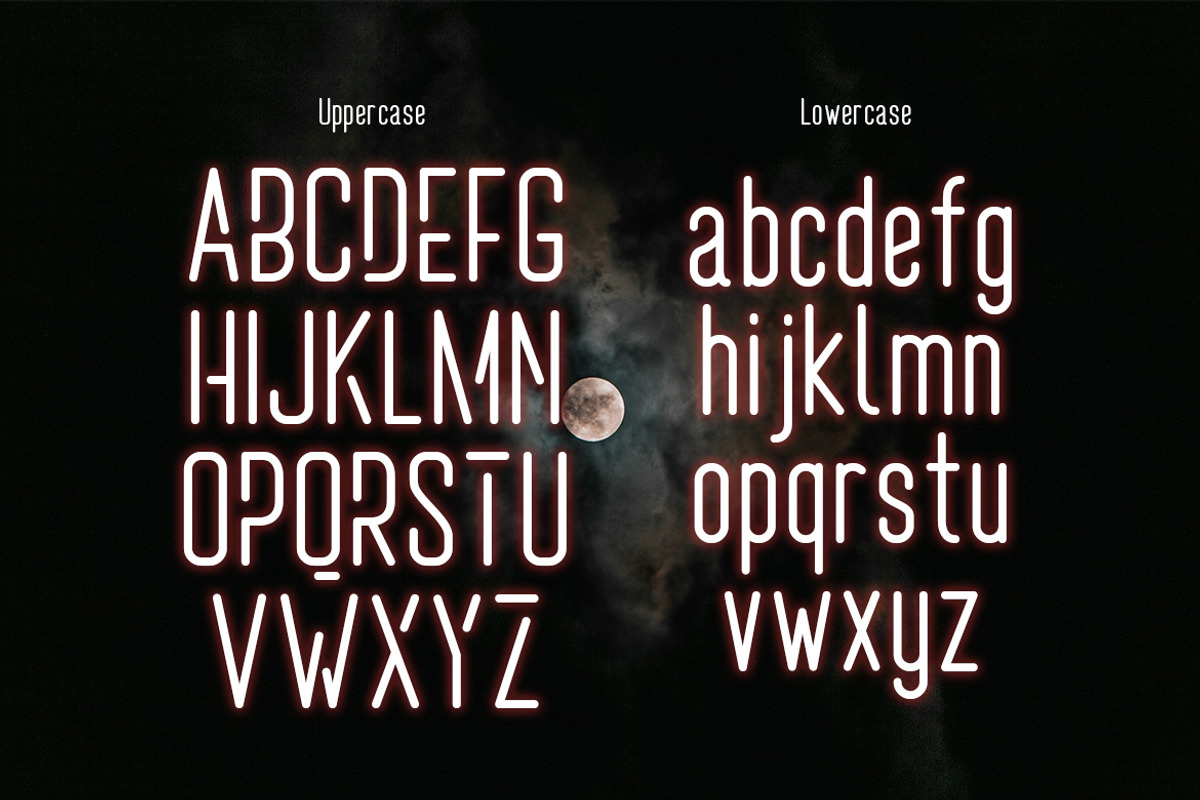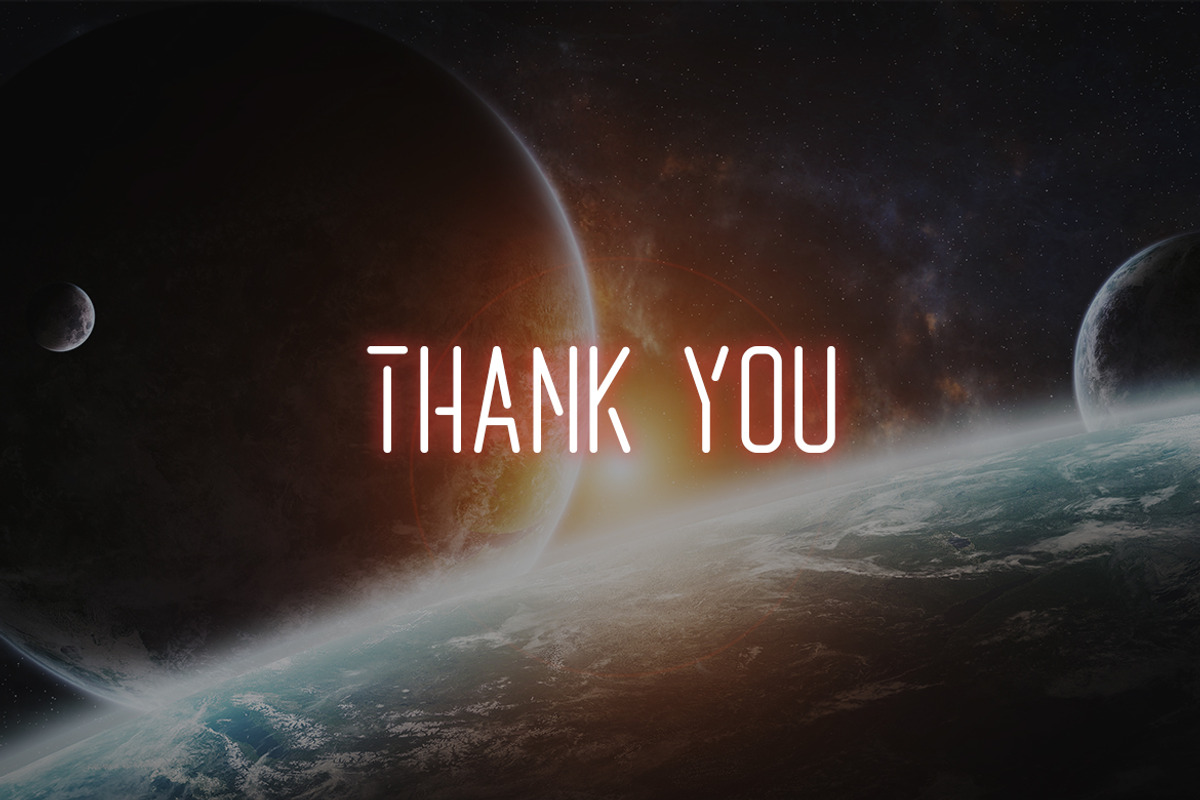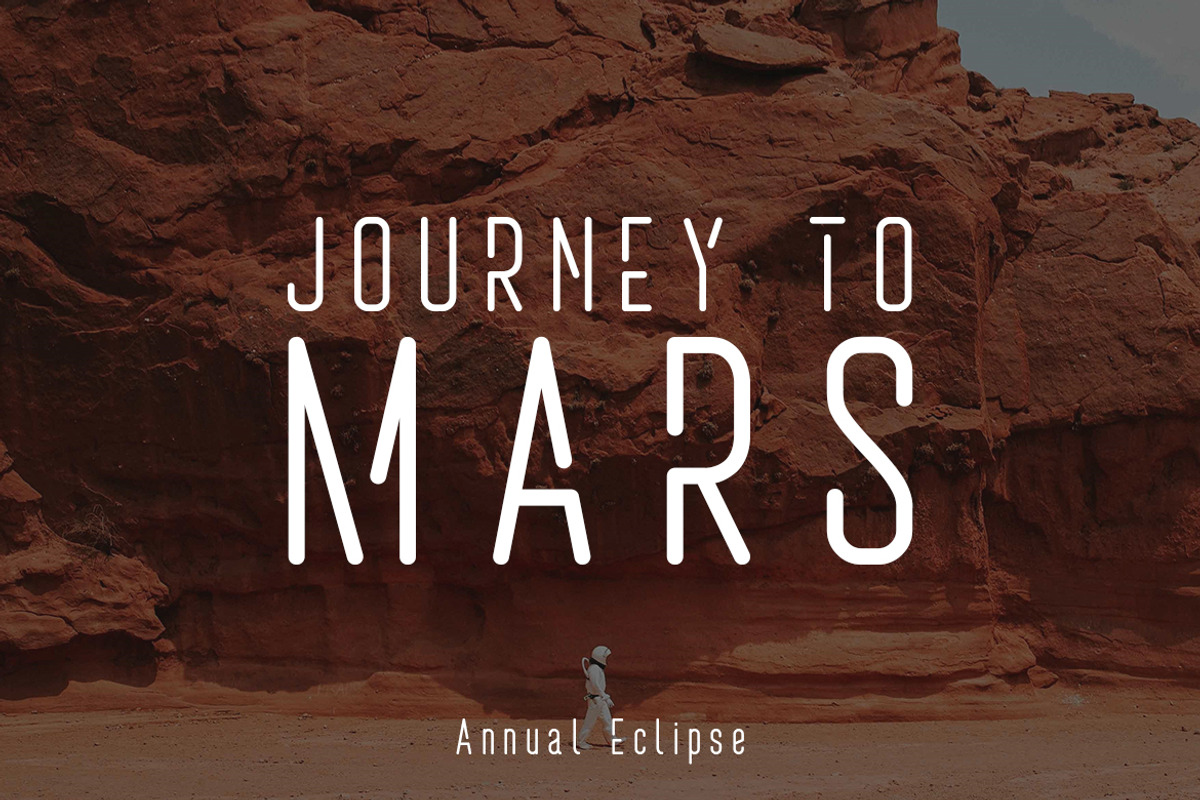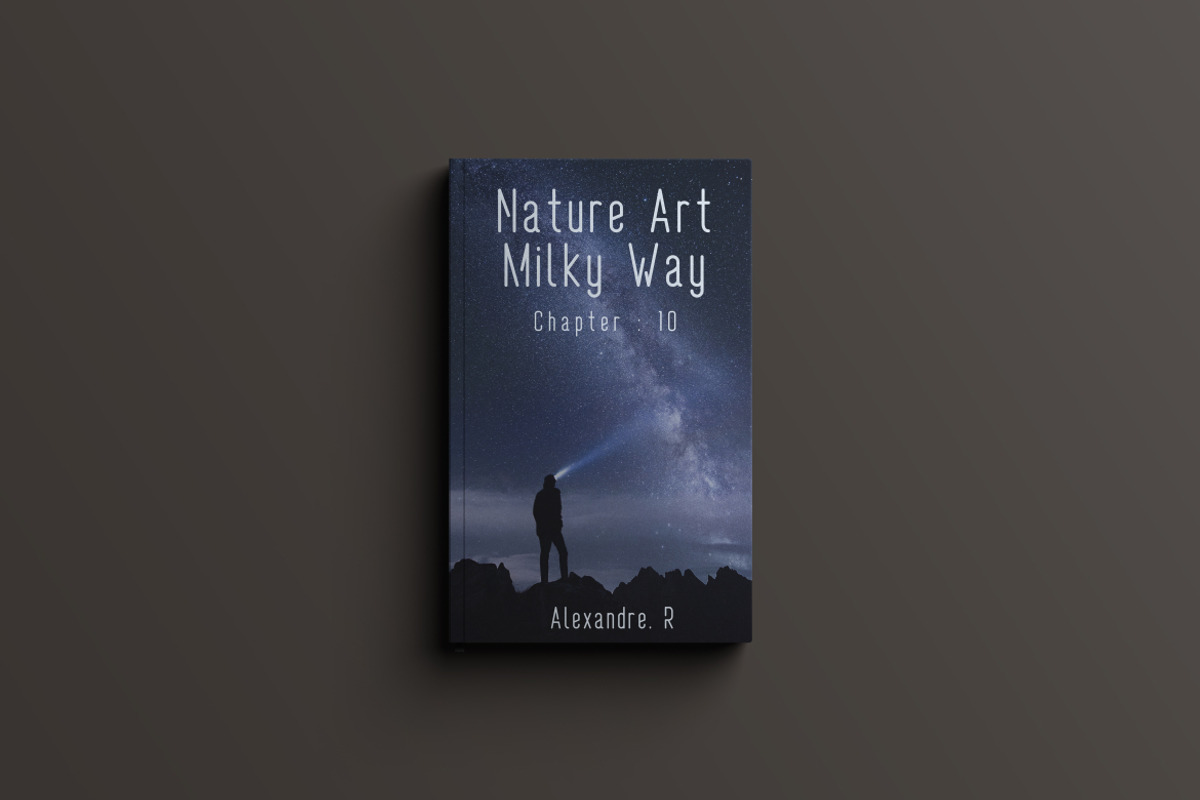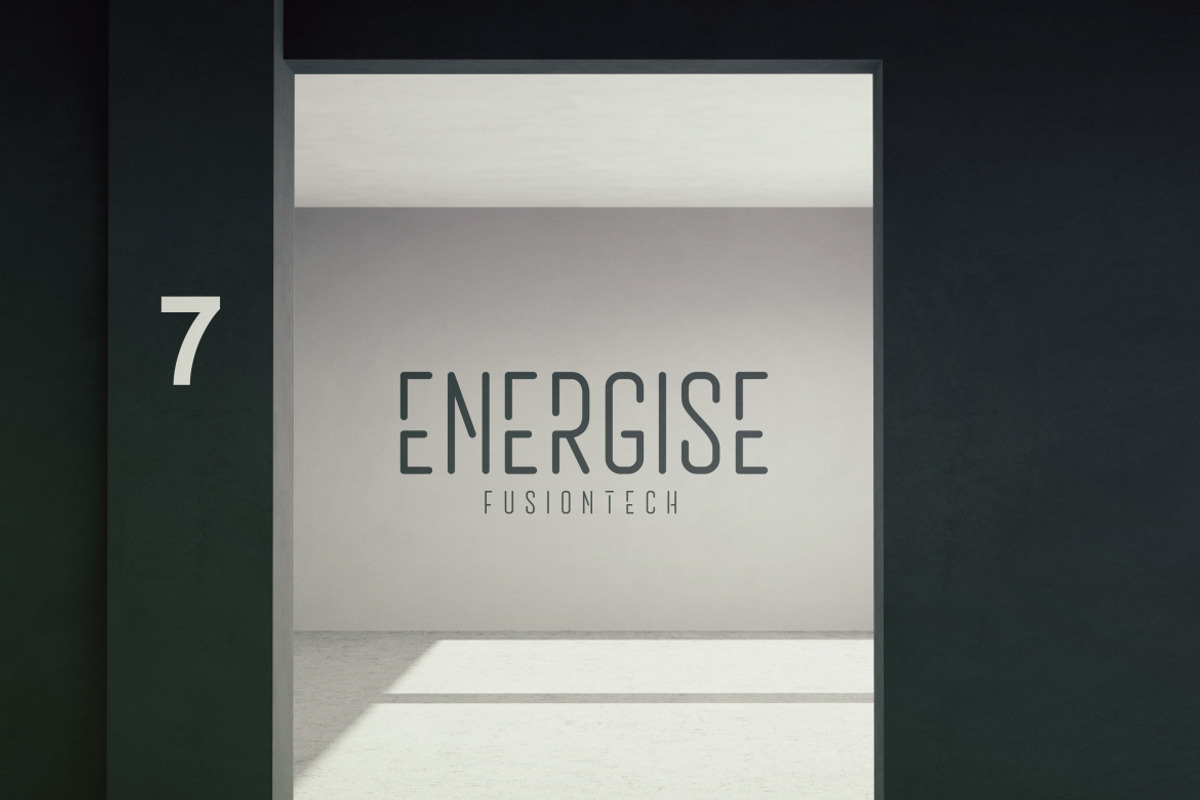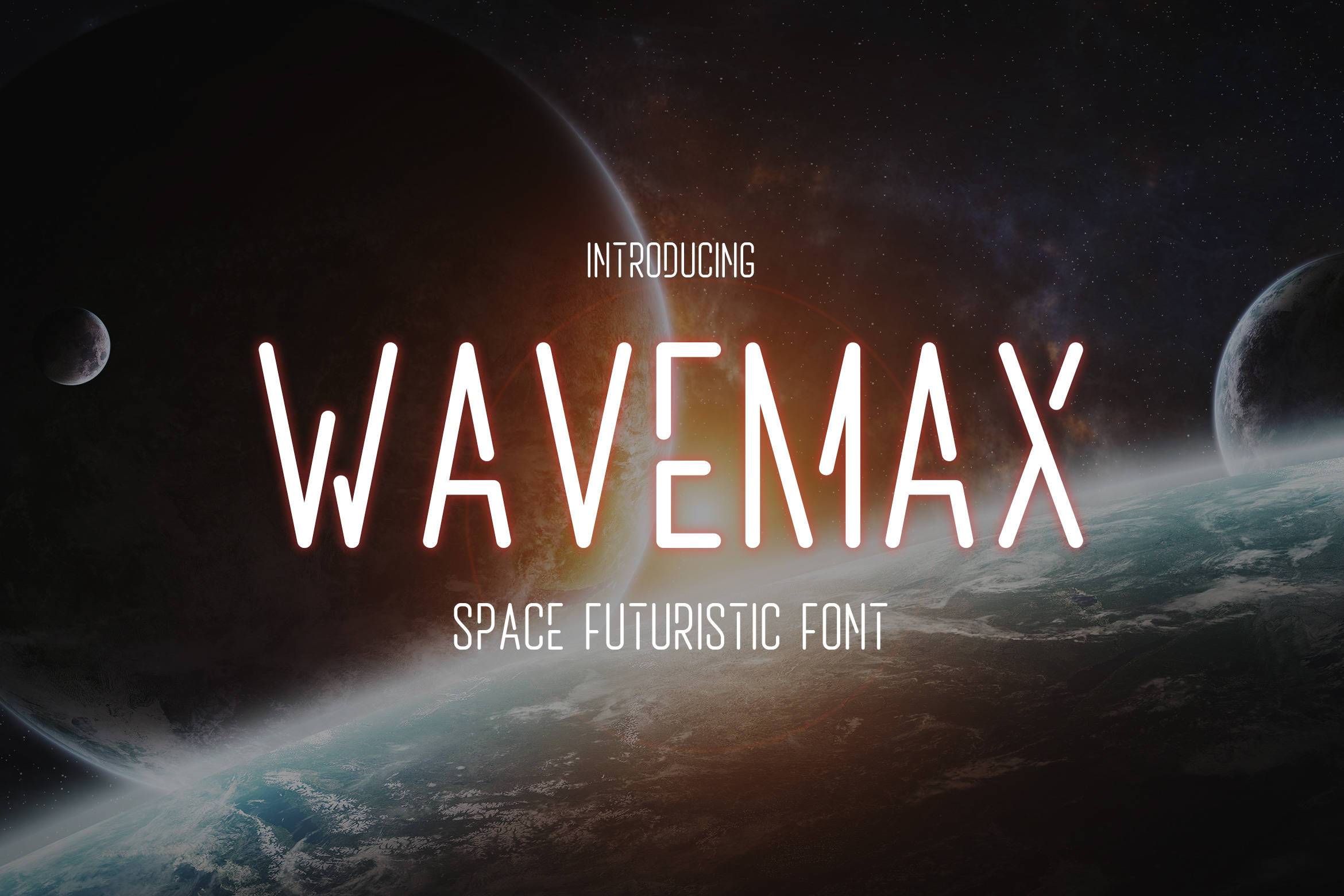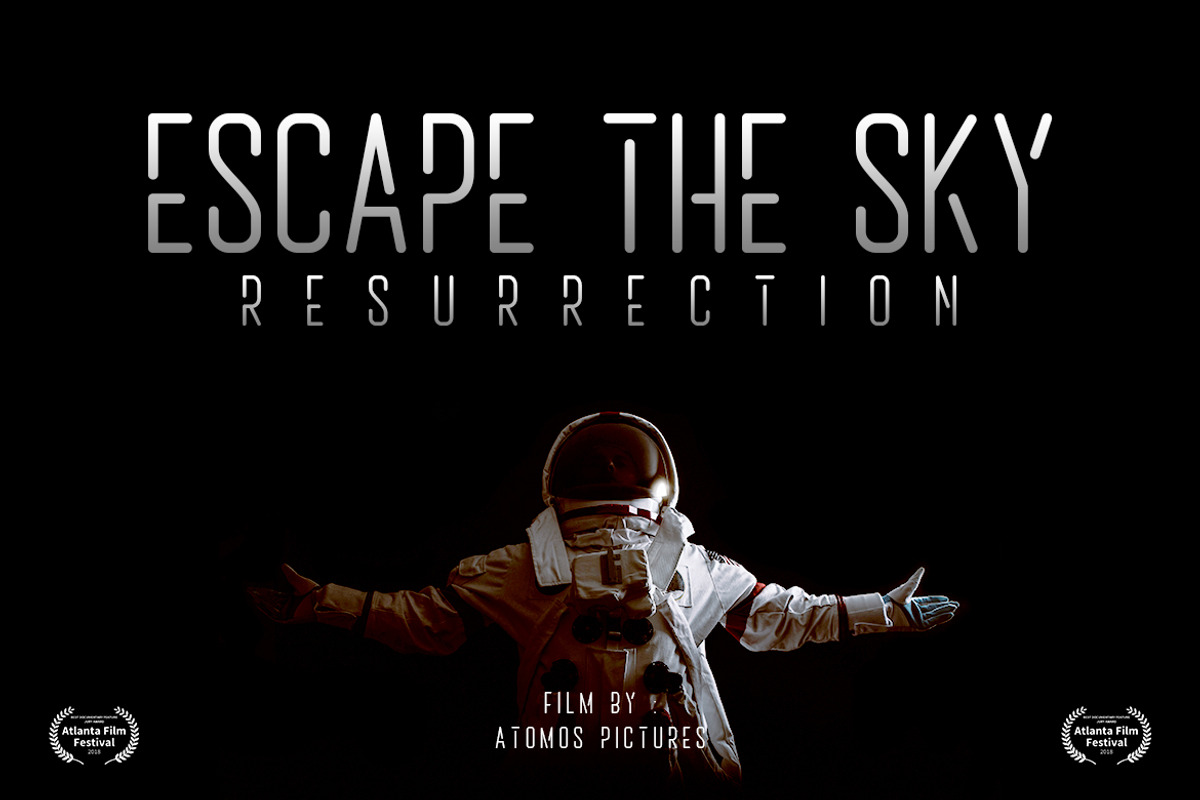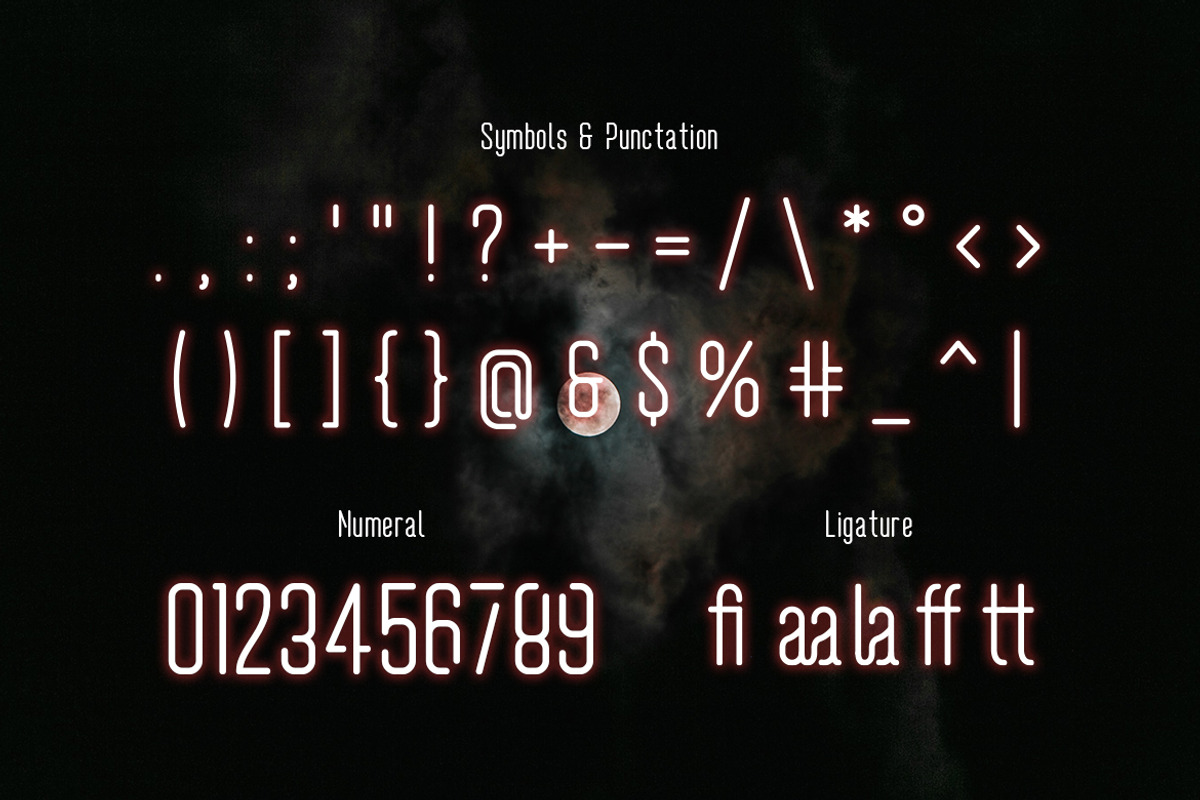
Wavemax - Space Futuristic Font
Wavemax is A space futuristic font. Wavemax perfect for technology, digital, space galaxy theme. Also suitable for movie, documenter, film, logo, poster, game, book cover, headlines, title and many more projects.